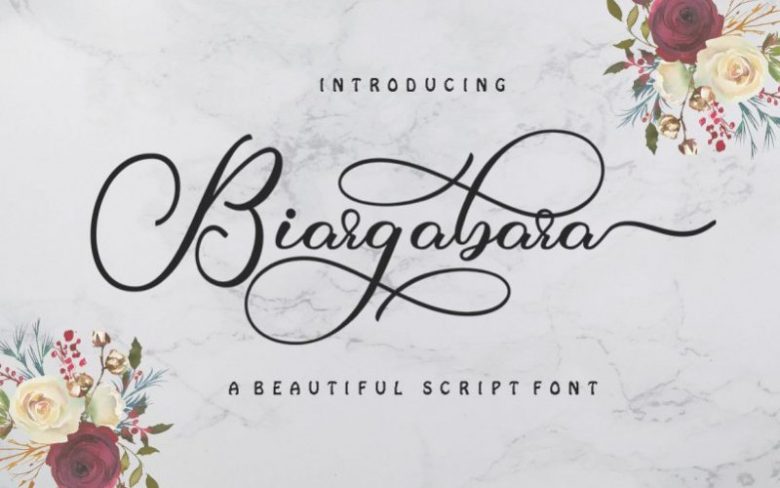
Biargabara Calligraphy Font
Introducing the Biargabara Script font. Hi Designer, Come again to complete your script font collection …! Font Biargabara Script. This is a classic thin font with italics
style.
Here you will get a beautiful classic font. This font is available in several modern rounds that can make your work look elegant, sweet and perfect.